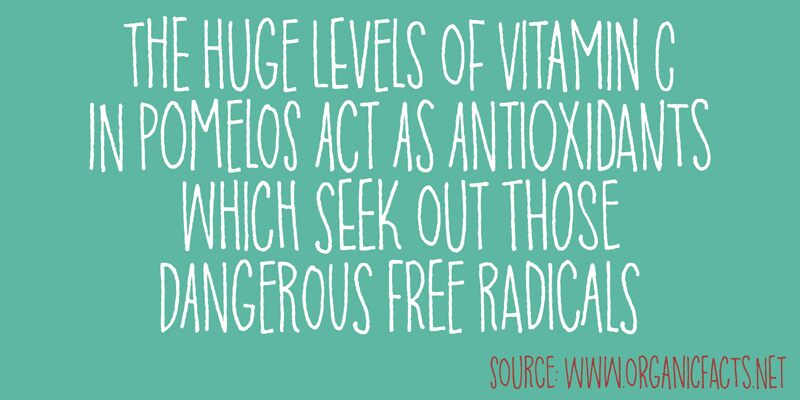
The Pompelmus font is a unique and visually striking typeface designed by Pizzadude. This font features a distinctive rounded, playful style that adds a fun and whimsical touch to any design project.
The Pompelmus font is available in a variety of weights, including Regular, Bold, and Italic, allowing users to create a range of typographic effects. The font's clean lines and smooth curves make it an excellent choice for headings, logos, and other display-oriented applications.
In addition to its aesthetic appeal, the Pompelmus font is also highly versatile. It can be used in a wide range of contexts, from children's storybooks to modern web designs, seamlessly integrating with a variety of visual styles.
Overall, the Pompelmus font is a captivating and well-crafted typeface that can elevate the look and feel of any project. Whether you're a designer, a publisher, or simply someone who appreciates beautiful typography, the Pompelmus font is definitely worth exploring.